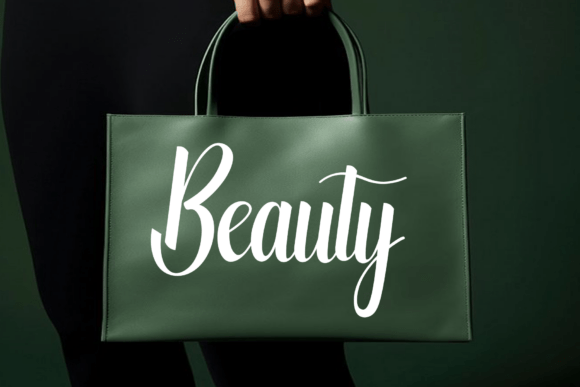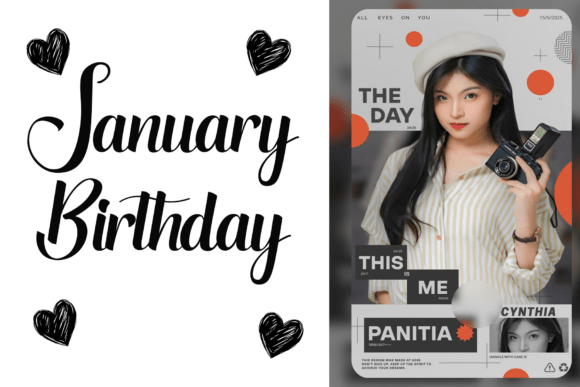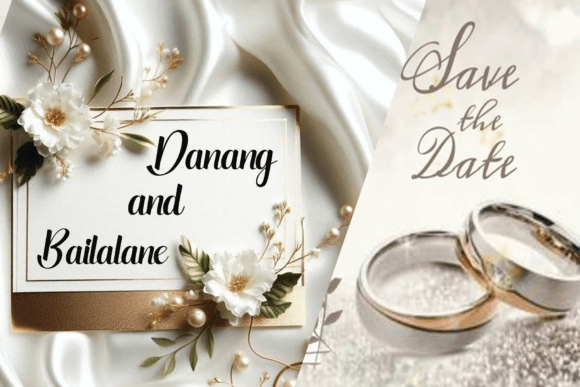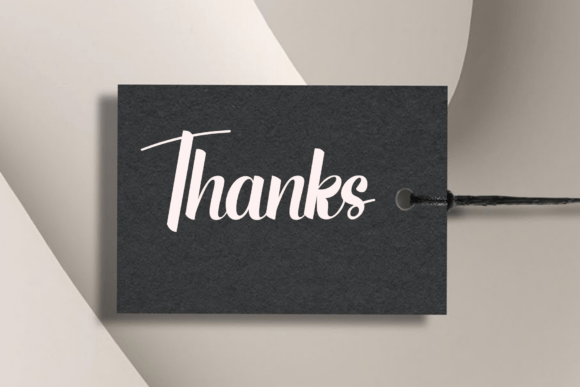
Introducing Alaska Font: Elevate Your Designs with Timeless Elegance
Are you on the hunt for a font that exudes sophistication, elegance, and a touch of modern flair? Look no further than Alaska Font, a stunning handwritten typeface that is sure to elevate your designs to new heights. Inspired by the timeless classics of calligraphy, Alaska Font brings a contemporary atmosphere to the table, making it the perfect addition to your typographic arsenal.
The Inspiration Behind Alaska Font
Alaska Font draws its inspiration from the world of classic calligraphy, where the art of beautiful handwriting meets the precision of typography. The result is a font that boasts impeccable form, balanced and varied strokes, and a sense of fluidity that is hard to find in digital fonts. The creators of Alaska Font have successfully captured the essence of traditional calligraphy, infusing it with a modern twist that makes it perfect for a wide range of design applications.
What Makes Alaska Font Stand Out?
So, what sets Alaska Font apart from other fonts in its class? Here are just a few key features that make it a standout:
- Contemporary Atmosphere: Alaska Font has a distinctly modern feel to it, making it perfect for designers who want to add a touch of sophistication to their work.
- Impeccable Form: The font’s attention to detail and precise craftsmanship make it a joy to use, with every stroke and curve carefully considered to create a beautiful, cohesive look.
- Balanced and Varied: Alaska Font features a range of weights and styles, making it easy to add depth and interest to your designs.
Whether you’re a graphic designer, crafty crafter, or simply someone who loves to dabble in typography, Alaska Font is the perfect addition to your toolkit. Here are just a few ideas for how you can use this versatile font:
- Branding and Logo Design: Use Alaska Font to create a sophisticated, high-end look for your brand or business.
- Wedding and Event Planning: Add a touch of elegance to your wedding invitations, menus, and other event materials with Alaska Font.
- Stationery and Paper Crafts: Use Alaska Font to create beautiful, hand-written style cards, letters, and other paper crafts.
- Digital Design: Alaska Font is perfect for use in digital designs, from social media graphics to website headers and more.
Tips for Getting the Most Out of Alaska Font
To really make Alaska Font shine, here are a few tips to keep in mind:
- Experiment with Different Weights and Styles: Don’t be afraid to try out different weights and styles of Alaska Font to find the one that works best for your design.
- Pair with Other Fonts: Alaska Font pairs beautifully with a range of other fonts, so don’t be afraid to get creative and try out different combinations.
- Pay Attention to Kerning and Tracking: To really make Alaska Font shine, make sure to pay attention to kerning and tracking, adjusting these settings as needed to create a smooth, cohesive look.
In conclusion, Alaska Font is a truly exceptional typeface that is sure to elevate your designs to new heights. With its timeless elegance, contemporary atmosphere, and impeccable form, it’s the perfect addition to any designer’s toolkit. Whether you’re a seasoned pro or just starting out, Alaska Font is definitely worth checking out.